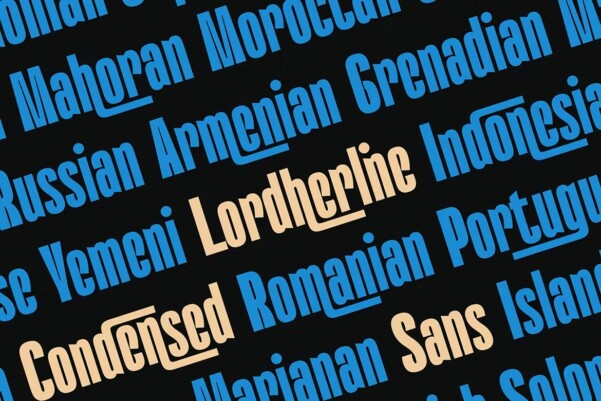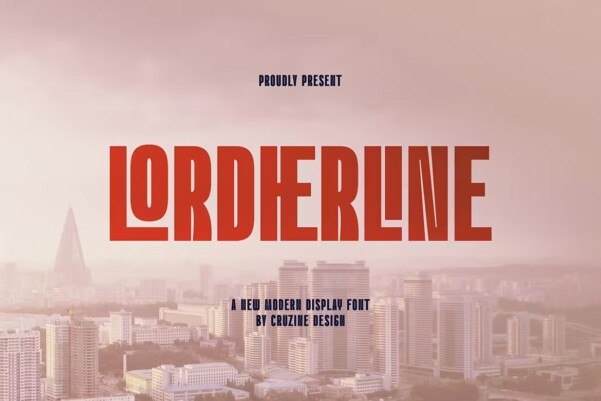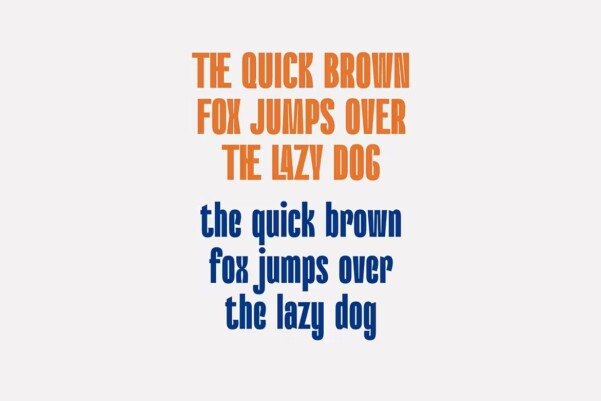
Lordherline Font
Lordherline Font, Modern, clean, crisp and futuristic style sans serif font for your new creative projects. The condensed and trendy style of the Lordherline font will be ideal for any branding project. Some alternatives and ligatures will help you create a unique and original logo or website header!